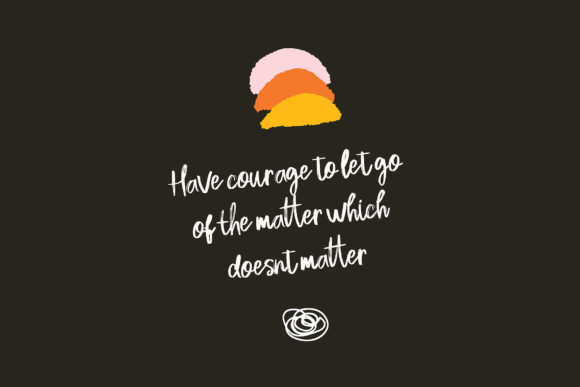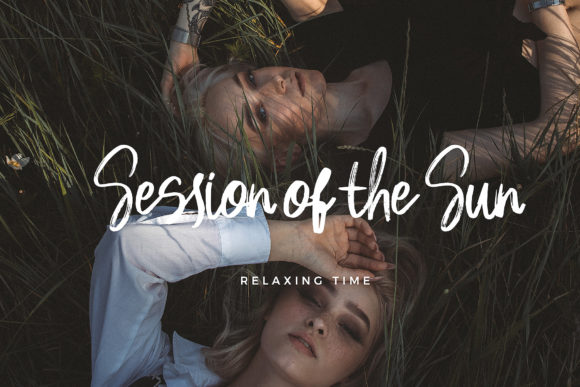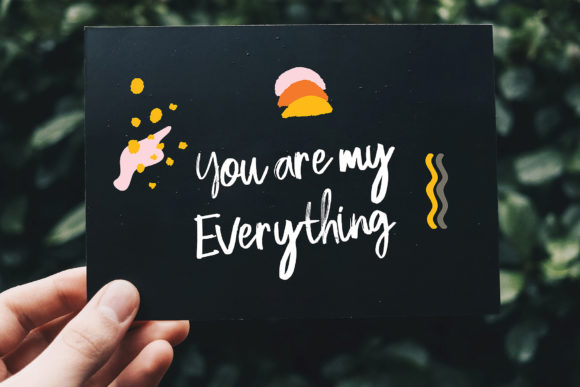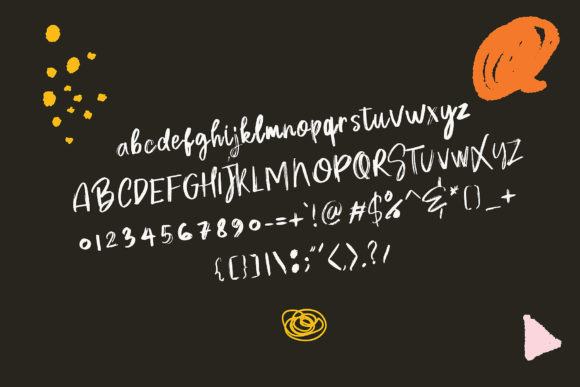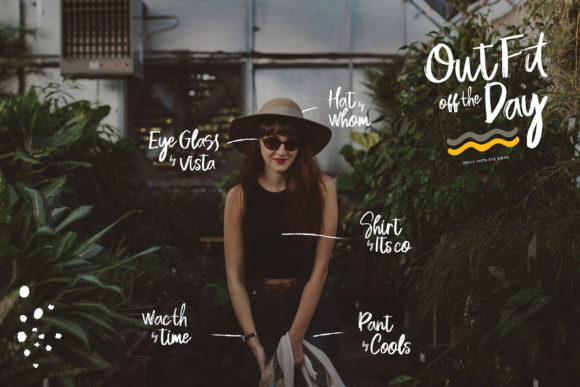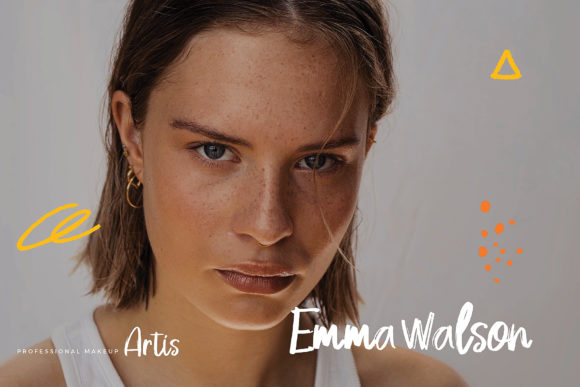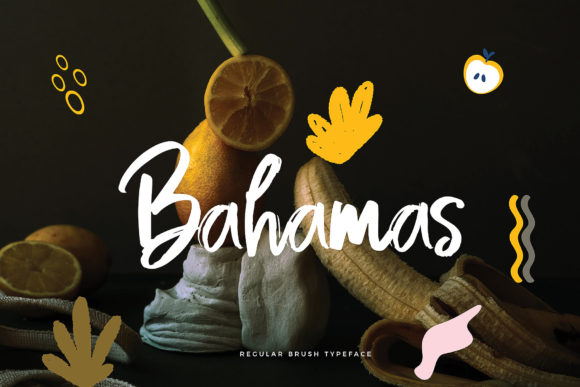
Bahamas Font: The Perfect Addition to Your Design Arsenal
Are you a designer or crafter looking for a unique and elegant font to elevate your designs? Look no further than the Bahamas Font. This lovely brushed handwritten font is perfect for adding a touch of sophistication and whimsy to any design project. In this article, we’ll dive into the features and benefits of the Bahamas Font, and explore how it can be used to create stunning designs for various applications.
What is Bahamas Font?
Bahamas Font is a beautiful, hand-brushed script font that exudes elegance and charm. Its unique, cursive style is perfect for creating custom designs that stand out from the crowd. The font’s soft, brushed texture gives it a romantic and whimsical feel, making it ideal for designs that require a touch of personality.
Features of Bahamas Font
• Handwritten style: Bahamas Font is a true handwritten font, crafted with love and care to give it a personal touch.
• Brushed texture: The font’s soft, brushed texture gives it a unique and eye-catching appearance.
• Elegant and whimsical: Bahamas Font strikes the perfect balance between elegance and playfulness, making it suitable for a wide range of design applications.
• Highly versatile: This font can be used for various design projects, from wedding invitations and greeting cards to logos and business cards.
Uses of Bahamas Font
Bahamas Font is an incredibly versatile font that can be used for a variety of design projects. Here are some ideas to get you started:
• Wedding invitations: Add a touch of romance and elegance to your wedding invitations with Bahamas Font.
• Thank you cards: Express your gratitude in style with beautifully designed thank you cards featuring Bahamas Font.
• Quotes and posters: Create stunning quote posters and social media graphics using Bahamas Font.
• Greeting cards: Design beautiful greeting cards for special occasions like birthdays, anniversaries, and holidays.
• Logos and branding: Use Bahamas Font to create unique and memorable logos for your business or personal brand.
• Business cards: Stand out from the crowd with custom business cards featuring Bahamas Font.
Why Choose Bahamas Font?
With so many fonts available, why choose Bahamas Font? Here are a few reasons why this font stands out:
• Unique style: Bahamas Font has a distinctive, hand-brushed style that sets it apart from other fonts.
• Ease of use: This font is easy to read and works well in various design applications.
• Customization options: Bahamas Font can be customized to fit your design needs, from adjusting the font size to adding effects and textures.
• Support for crafters and designers: By choosing Bahamas Font, you’re supporting the creative community and helping to promote unique and handmade design elements.
Tips for Using Bahamas Font
To get the most out of Bahamas Font, here are some tips to keep in mind:
• Pair with complementary fonts: Combine Bahamas Font with other fonts to create visually appealing and balanced designs.
• Experiment with colors and textures: Add depth and interest to your designs by experimenting with different colors and textures.
• Use for headlines and titles: Bahamas Font works well for headlines and titles, adding a touch of elegance and sophistication to your designs.
• Don’t overuse: Use Bahamas Font judiciously to avoid overwhelming your design. Balance it with other design elements to create a cohesive look.
Font Name Bahamas Font
Bahamas Font is a beautiful, hand-brushed script font that can elevate your designs and add a touch of elegance and whimsy. With its unique style, versatility, and ease of use, this font is perfect for designers and crafters looking to create stunning designs for various applications. Whether you’re designing wedding invitations, greeting cards, logos, or business cards, Bahamas Font is sure to become a favorite in your design arsenal.